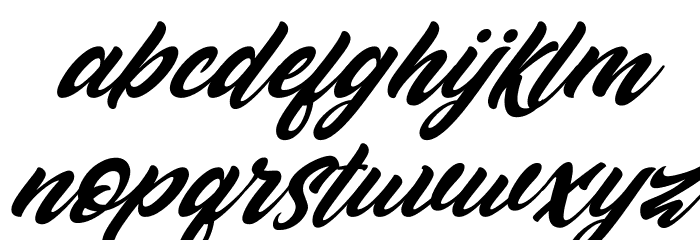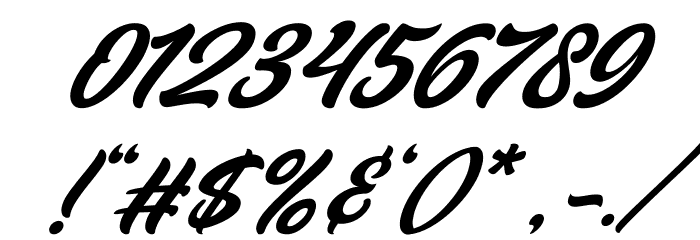
Dakiens Italic Font
This font exudes a bold and dynamic presence with its italicized, flowing script style. The characters are intricately connected, creating a seamless and elegant appearance. The strokes are thick and consistent, providing a strong visual impact. Each letter is carefully crafted with smooth curves and a slight slant, enhancing its fluidity and grace. The numbers and special characters maintain the same stylistic approach, ensuring uniformity across all elements. This font is ideal for projects that require a touch of sophistication and flair.
A bold, italic script font with flowing, connected characters.
- Proposed Projects: Ideal for wedding invitations, elegant branding, and luxury product packaging.
- Character Spacing: Tight
- Use Case: Logos, Invitations, Branding